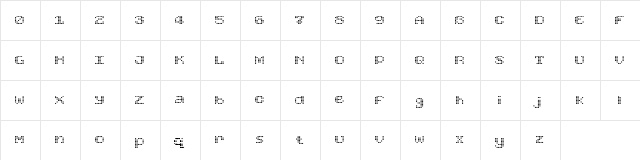
UCT Found Receipt Regular
| Designer | Zach Risso |
Design Context for UCT Found Receipt Typeface
UCT Found Receipt offers clean, dependable letterforms without strong stylistic allegiance, making it a practical choice for designers who need flexibility.